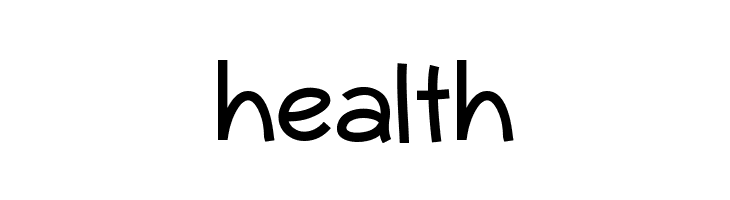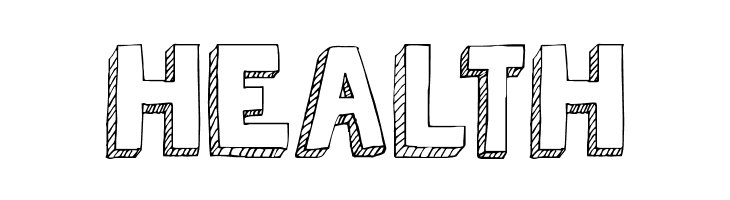
A playful, outlined font with a comic-like, whimsical style.
A playful, hand-drawn comic-style font with a whimsical and lively appearance.
A bold, textured font with a distressed, grunge aesthetic.
A bold, expressive brush script font with dynamic strokes and artistic flair.
A playful, hand-drawn font with a 3D sketch effect and diagonal hatching.